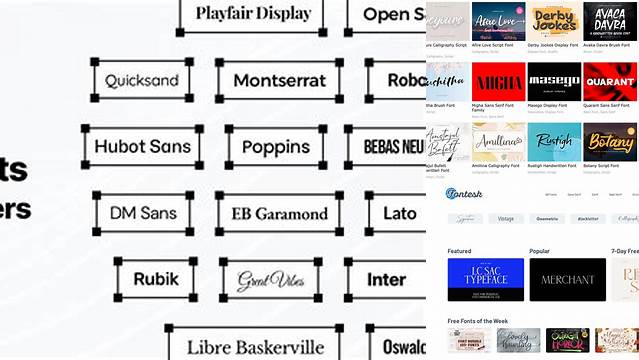
Best Free Font Download Websites
Hey guys! Finding the perfect font for your project can sometimes feel like searching for a needle in a haystack. But don't worry, I've got you covered! There are tons of awesome websites out there where you can download free fonts to spice up your designs, whether you're working on a website, a presentation, or even a cool poster. Let's dive into some of the best free font download websites that can seriously level up your typography game.
1. High-Quality Free Font Websites
When it comes to finding the perfect typeface, quality is key. You don't want to end up with a font that looks pixelated or unprofessional, right? That's why it's super important to check out websites that offer high-quality free fonts. These sites usually have a curated selection, meaning each font has been carefully vetted for its design and usability. Think of it like shopping at a boutique instead of a big box store – you're more likely to find something truly special. Free font download websites that prioritize quality often have clear licensing information, so you know exactly how you can use the fonts without running into any legal issues. This is a big plus, especially if you're using the fonts for commercial projects. Make sure to explore the collection; you might find a hidden gem that perfectly matches your creative vision! Always remember, a great font can make a world of difference in how your project is perceived. So, take your time, explore these high-quality resources, and find the perfect match for your design needs. You'll be amazed at the impact a well-chosen font can have.
3. Best Websites for Aesthetic Fonts
Looking to add a touch of flair and personality to your designs? Then you're probably on the hunt for aesthetic fonts! These are the fonts that go beyond the basic and bring a unique vibe to your projects. Think stylish serifs, elegant scripts, and bold display fonts that scream creativity. The best websites for aesthetic fonts offer a diverse range of options, from vintage-inspired typefaces to modern, minimalist styles. Browsing these sites can be like stepping into a candy store for designers – so many delicious options! When you're searching for aesthetic fonts, pay attention to the mood you want to create. A playful script might be perfect for a wedding invitation, while a strong serif font can add gravitas to a business presentation. Don't be afraid to mix and match, but make sure your font choices complement each other and the overall design. And remember, the right aesthetic font can make your project truly stand out from the crowd. So, go ahead and explore these amazing resources and unleash your inner font fanatic!
4. User-Friendly Font Download Platforms
Let's face it: nobody wants to spend hours navigating a clunky website just to download a font. That's why user-friendly font download platforms are a godsend. These websites make the process of finding and downloading fonts super smooth and hassle-free. We're talking clear navigation, intuitive search filters, and easy-to-understand licensing information. A great user-friendly font download website will let you quickly browse by category (like serif, sans-serif, script), style (modern, vintage, handwritten), or even specific designers. Some platforms also offer previews, so you can see exactly how the font looks before you download it. This is a huge time-saver! Another feature to look for is a robust search function. You should be able to type in keywords like "bold," "elegant," or "retro" and get relevant results. Ultimately, the goal of a user-friendly platform is to make finding the perfect font as easy as possible. So, if you're tired of wrestling with confusing websites, check out these gems and get ready for a streamlined font-downloading experience!
5. Websites with a Wide Variety of Font Styles
Variety is the spice of life, and the same goes for fonts! If you're a designer who loves to experiment and explore different styles, you'll want to check out websites with a wide variety of font styles. These are the treasure troves where you can find everything from classic serifs and clean sans-serifs to quirky handwritten fonts and futuristic display typefaces. Think of it as a one-stop-shop for all your typographic needs. A website with a vast font library not only gives you more options but also helps you discover new styles you might not have considered before. You might stumble upon the perfect vintage-inspired font for your logo or a unique script font for your website header. When browsing these sites, take advantage of the filters and categories to narrow down your search. You can usually filter by style, weight, width, and even specific features like ligatures or alternates. And don't be afraid to get lost in the sheer abundance of choices! That's part of the fun. So, if you're looking to expand your font horizons, dive into these websites with a massive selection of font styles and get ready to be inspired.
6. Free Fonts for Graphic Design Projects
If you're a graphic designer, you know that typography is a crucial element of any project. The right font can make or break a design, conveying the right message and creating the desired mood. That's why having access to a collection of free fonts for graphic design projects is a must. But not just any free font will do. You need fonts that are high-quality, versatile, and suitable for a range of applications, from logos and branding to websites and print materials. The best websites for graphic design free fonts offer a curated selection of typefaces that meet these criteria. They often have fonts designed specifically for headlines, body text, or display purposes, making it easier to find what you need. When choosing free fonts for your graphic design projects, consider the overall aesthetic you're aiming for. Do you need a clean and modern sans-serif for a tech startup? Or a classic serif font for a more traditional brand? Think about readability, legibility, and how the font will work in different sizes and contexts. With the right fonts in your toolkit, you'll be able to create stunning designs that truly stand out.
7. Free Fonts for Web Design
In the world of web design, typography plays a pivotal role in creating a user-friendly and visually appealing experience. The fonts you choose can impact everything from readability to brand personality. That's why finding the right free fonts for web design is so important. But what makes a font "good" for the web? Well, it needs to be legible on different screens and devices, load quickly to avoid slowing down your site, and complement your overall design aesthetic. Luckily, there are plenty of fantastic free font download websites that offer fonts specifically optimized for web use. These fonts often come in formats like TTF, OTF, and WOFF, which are compatible with most web browsers. When choosing free fonts for your website, consider factors like font pairing (how well the headline and body fonts work together) and responsiveness (how the fonts scale on different screen sizes). You might also want to look for web fonts that support different languages and character sets. With the right free web fonts, you can create a website that looks professional, engaging, and easy to read.
8. Free Fonts for Logo Design
Your logo is the face of your brand, so the font you choose for it is a big deal. It needs to be memorable, legible, and perfectly capture your brand's personality. That's why the search for free fonts for logo design is a common quest for entrepreneurs and designers alike. But finding the perfect font for a logo can be tricky. You need something that stands out, but also works well in different sizes and applications, from business cards to website headers. Many free font download websites offer fonts that are particularly well-suited for logo design. These might include bold display fonts, elegant serifs, or unique script fonts. When selecting a free font for your logo, think about your brand's identity. Are you going for a modern and minimalist look? Or a more classic and sophisticated vibe? Consider how the font will look in black and white, as well as in color. And don't be afraid to customize a free font to make it truly unique to your brand. With a little creativity, you can find the perfect free font to make your logo shine.
9. Free Fonts for Personal Use
Sometimes, you just want to play around with fonts for fun – maybe for a personal project, a birthday card, or a social media post. That's where free fonts for personal use come in. These are fonts that you can download and use for free in your non-commercial projects. Think of them as the perfect way to add a personal touch to your creative endeavors without spending a dime. Many free font download websites offer a wide selection of fonts that fall under this category. You can find everything from playful handwritten fonts to elegant calligraphy scripts, all perfect for adding a unique flair to your projects. When using free fonts for personal use, it's always a good idea to double-check the license agreement to make sure you're using them within the terms. Most of these fonts are clearly marked as "free for personal use only," but it's still good to be certain. So, go ahead and explore the world of free fonts for personal projects and let your creativity flow!
10. Free Fonts with Open Source Licenses
In the world of free fonts, open source licenses are like the gold standard. They give you the most freedom and flexibility to use fonts in a wide range of projects, both personal and commercial. Free fonts with open source licenses are typically released under licenses like the SIL Open Font License (OFL), which allows you to use, modify, and redistribute the fonts freely. This means you can use them in your logos, websites, print materials, and pretty much anything else you can dream up. The beauty of open source fonts is that they're often a collaborative effort, with designers from around the world contributing to their creation and improvement. This leads to a diverse and high-quality collection of typefaces. When you download fonts with an open source license, you're not just getting a free font; you're also becoming part of a community that values sharing and creativity. So, if you're looking for fonts that you can truly own and use without restrictions, check out free font download websites that offer open source options.
11. Trending Font Styles for Free Download
Just like fashion, font trends come and go. What's hot one year might be old news the next. So, if you want your designs to look fresh and modern, it's a good idea to keep an eye on trending font styles. Luckily, many free font download websites curate collections of the latest and greatest typefaces, making it easy to stay on top of the trends. Right now, we're seeing a lot of love for things like bold sans-serifs, retro-inspired fonts, and hand-drawn scripts. But trends can change quickly, so it's always good to browse around and see what's catching your eye. One of the best ways to find trending fonts is to check out design blogs and social media platforms. Designers often share their favorite new fonts and font combinations, giving you a glimpse into what's popular in the design world. And don't be afraid to experiment with different font styles to see what works best for your projects. The key is to find fonts that feel current and reflect the overall aesthetic you're aiming for. With a little research, you can download free trending fonts and give your designs a stylish edge.
12. Best Free Serif Font Websites
Serif fonts are classic, elegant, and versatile, making them a staple in the world of typography. These fonts, characterized by the small strokes or "serifs" at the ends of the letters, can add a touch of sophistication to any design. If you're looking for free serif fonts, you're in luck! There are many excellent websites that offer a wide selection of these timeless typefaces. The best free serif font websites curate high-quality fonts that are suitable for a variety of projects, from body text in books and articles to headlines and logos. When browsing these sites, you'll find everything from traditional serif fonts like Times New Roman and Garamond to more modern and unique options. One of the great things about serif fonts is their readability, especially in print. They can also evoke a sense of tradition, authority, and trustworthiness. So, if you're looking to add a touch of class to your designs, explore the world of free serif fonts and discover the perfect typeface for your project. With so many options available, you're sure to find a free serif font that fits your needs and style.
13. Top Free Sans-Serif Font Resources
In contrast to serif fonts, sans-serif fonts are known for their clean, modern, and minimalist aesthetic. These fonts, which lack the serifs at the ends of the strokes, are a popular choice for web design, branding, and other contemporary applications. If you're on the hunt for free sans-serif fonts, you'll be happy to know that there are tons of top resources available online. The top free sans-serif font resources offer a diverse range of options, from classic fonts like Helvetica and Arial to more unique and stylish choices. When choosing a sans-serif font, consider factors like legibility, scalability, and overall tone. These fonts are often used for headlines, body text, and user interfaces, so it's important to select a font that is easy to read in a variety of sizes and contexts. The best websites for free fonts will allow you to preview the font in different sizes and styles, making it easier to find the perfect match for your project. So, whether you're designing a website, a logo, or a marketing campaign, explore the world of free sans-serif fonts and discover the perfect typeface to convey your message.
14. Free Script and Handwritten Font Websites
If you're looking to add a personal touch to your designs, script and handwritten fonts are the way to go. These fonts mimic the fluidity and charm of handwriting, adding a touch of warmth and personality to your projects. Whether you're designing invitations, logos, or social media graphics, a well-chosen script or handwritten font can make a big impact. Luckily, there are several free script and handwritten font websites where you can find a wide variety of these stylish typefaces. The best free font resources offer everything from elegant calligraphy scripts to playful brush-lettered fonts. When browsing these sites, consider the overall mood you want to create. A formal script font might be perfect for a wedding invitation, while a more casual handwritten font could be ideal for a blog post or social media graphic. The top free font download websites will also allow you to preview the font before you download it, so you can see how it looks in different sizes and contexts. So, if you're ready to add a personal touch to your designs, explore the world of free script and handwritten fonts and find the perfect typeface to express your creativity.
15. Best Free Display Font Download Sites
Display fonts are the rock stars of the font world. These eye-catching typefaces are designed to grab attention and make a statement. They're perfect for headlines, logos, posters, and other projects where you want to make a big impact. If you're looking for best free display font download sites, you're in the right place. There are several websites that offer a fantastic selection of these attention-grabbing fonts. The best free font websites curate high-quality display fonts that are suitable for a variety of design styles, from vintage to modern. When choosing a display font, consider the overall tone and message you want to convey. A bold, geometric font might be perfect for a tech startup, while a quirky, hand-drawn font could be ideal for a children's book. The top websites for free fonts will also allow you to filter your search by style, weight, and other criteria, making it easy to find the perfect display font for your project. So, if you're ready to make a statement with your typography, explore the world of free display fonts and find the perfect typeface to capture attention.
16. Free Vintage and Retro Font Websites
Vintage and retro fonts are all the rage these days, bringing a touch of nostalgia and old-school charm to your designs. These fonts evoke a sense of history and craftsmanship, making them perfect for projects that want to capture a classic or timeless feel. If you're looking for free vintage and retro font websites, you're in luck! There are several online resources that offer a fantastic selection of these stylish typefaces. The best free font download websites curate vintage and retro fonts that range from elegant serifs inspired by the early 20th century to bold, Art Deco-inspired display fonts. When choosing a vintage or retro font, consider the specific era or style you want to emulate. A script font with swashes and flourishes might be perfect for a vintage wedding invitation, while a bold, sans-serif font could be ideal for a retro-inspired logo. The top free font websites will also provide previews of the fonts, so you can see how they look in different sizes and contexts. So, if you're ready to add a touch of vintage charm to your designs, explore the world of free vintage and retro fonts and find the perfect typeface to transport your audience back in time.
17. Free Modern and Futuristic Font Resources
If you're looking to create a sleek, cutting-edge design, modern and futuristic fonts are the way to go. These fonts often feature clean lines, geometric shapes, and a minimalist aesthetic, making them perfect for projects that want to convey innovation and forward-thinking. If you're on the hunt for free modern and futuristic font resources, you'll be happy to know that there are several websites that offer a great selection of these stylish typefaces. The best websites for free fonts curate modern and futuristic fonts that range from sleek sans-serifs to geometric display fonts. When choosing a modern or futuristic font, consider the overall tone and message you want to convey. A minimalist sans-serif might be perfect for a tech startup's website, while a bold, geometric display font could be ideal for a sci-fi movie poster. The top free font download websites will also provide information about the font's license, so you can ensure it's suitable for your intended use. So, if you're ready to create a design that looks like it's from the future, explore the world of free modern and futuristic fonts and find the perfect typeface to express your vision.
18. Websites Offering Multilingual Free Fonts
In today's globalized world, it's essential to choose fonts that support multiple languages. If you're designing for an international audience, you'll need to use websites offering multilingual free fonts. These websites provide fonts that include characters and glyphs for a wide range of languages, ensuring that your designs will look consistent and professional no matter where they're viewed. The best free font resources for multilingual fonts offer a variety of styles, from serif and sans-serif to script and display fonts, all with extensive language support. When choosing multilingual fonts, it's important to check which languages are supported and to ensure that the font includes all the characters you need. The top free font websites will often provide detailed information about the font's language support, as well as previews of the characters and glyphs. So, if you're designing for a global audience, be sure to explore free font download websites that offer multilingual options and choose fonts that will help you communicate effectively with your target audience.
19. Free Font Websites with Character Sets and Glyphs
For designers who need more than just basic letters and numbers, free font websites with character sets and glyphs are a must-visit. These websites offer fonts that include a wide range of additional characters, such as symbols, icons, ligatures, and alternate glyphs. These extra characters can add a unique flair to your designs and allow you to create more expressive and visually interesting typography. The best free font download websites for character sets and glyphs offer fonts in a variety of styles, from classic to contemporary, all with extensive character support. When choosing a font with extra characters, it's important to consider the specific needs of your project. Do you need mathematical symbols? Currency symbols? Or perhaps some decorative swashes and flourishes? The top websites for free fonts will often allow you to preview the font's character set, so you can see exactly what's included before you download it. So, if you're looking to add some extra personality and functionality to your designs, explore free fonts with rich character sets and glyphs and unlock a world of typographic possibilities.
20. Free Font Resellers: Are They Safe?
When searching for free fonts, you might come across free font resellers. These are websites that collect and redistribute fonts from various sources, often without proper licensing or permission. The question is: are free font resellers safe to use? The answer is, it's complicated. While some free font resellers might offer legitimate fonts, others may distribute fonts that are pirated, incomplete, or even contain malware. Using fonts from these sources can put you at risk of copyright infringement and legal issues. It's always best to download fonts from reputable sources that have clear licensing agreements and a proven track record of providing safe, high-quality fonts. The best free font websites work directly with font designers and foundries to ensure that their fonts are properly licensed and safe to use. So, while the allure of a free font download from a reseller might be tempting, it's important to prioritize safety and legality. Stick to trusted sources and protect yourself from potential risks. This means doing your research and understanding the terms of use before you click that download button. Remember, if a deal seems too good to be true, it probably is. Focus on building a collection of fonts from reputable sources, and you'll be setting yourself up for success in the long run.
21. Understanding Font Licensing for Free Fonts
Navigating the world of font licensing can feel like deciphering a secret code, but it's a crucial step when using free fonts. Understanding font licensing for free fonts ensures that you're using the fonts legally and ethically, and it protects you from potential copyright issues. The most common type of license you'll encounter with free fonts is the SIL Open Font License (OFL), which allows you to use, modify, and redistribute the font freely, even for commercial purposes. However, not all free fonts are licensed under the OFL, so it's essential to read the license agreement carefully before using a font. Some fonts may be free for personal use only, while others may have restrictions on embedding or modification. The best free font download websites will provide clear and concise licensing information for each font, making it easy to understand the terms of use. When in doubt, it's always best to contact the font designer or foundry directly to clarify any licensing questions. By understanding font licensing, you can use free fonts with confidence and focus on creating amazing designs without worrying about legal repercussions. This knowledge empowers you to make informed decisions and ensures that you're respecting the rights of the font creators. So, take the time to read the fine print, and you'll be well on your way to using free fonts responsibly.
22. How to Install Downloaded Free Fonts
So, you've found the perfect free font and clicked that download button – awesome! But what happens next? How to install downloaded free fonts is a straightforward process, but it can vary slightly depending on your operating system. Whether you're on Windows or macOS, the basic steps are the same: locate the downloaded font files, install them on your system, and then restart your design software. On Windows, you can typically install a font by right-clicking on the font file (usually a .ttf or .otf file) and selecting "Install." You can also copy the font files into the "Fonts" folder in your Windows directory. On macOS, you can simply double-click on the font file, and it will open in Font Book, where you can click "Install Font." Once the font is installed, it should be available in all your design applications, such as Adobe Photoshop, Illustrator, and InDesign. If you're having trouble seeing the font, try restarting your computer or design software. The best free font download websites often provide instructions on how to install fonts for different operating systems, so be sure to check their FAQs or help sections if you need assistance. With a few simple steps, you can add a whole new world of typography to your design toolkit!
23. Free Font Pairing Tools and Resources
The right font can make your design sing, but the wrong font combination can create a typographic cacophony. That's where free font pairing tools and resources come to the rescue. Font pairing is the art of selecting two or more fonts that work well together, creating a harmonious and visually appealing design. But how do you know which fonts to pair? Luckily, there are several free online tools and resources that can help you find the perfect font combinations. These tools often use algorithms and design principles to suggest fonts that complement each other in terms of style, weight, and overall aesthetic. Some free font download websites also offer curated font pairings, showcasing fonts that work well together within their library. When using font pairing tools, it's important to consider the purpose and tone of your design. A classic serif font might pair well with a clean sans-serif for a professional look, while a script font might complement a more playful sans-serif for a casual design. Experiment with different font combinations and trust your eye to find the perfect match for your project. With a little help from these handy resources, you'll be creating stunning typographic compositions in no time.
24. Converting Fonts to Different Formats for Free
Sometimes, you might encounter a free font in a format that's not compatible with your software or platform. That's where converting fonts to different formats for free becomes a useful skill. There are several free online font converters that allow you to change font formats, such as TTF (TrueType Font) to OTF (OpenType Font), or WOFF (Web Open Font Format) for web use. These tools typically work by uploading your font file and selecting the desired output format. The conversion process usually takes just a few seconds, and you can then download the converted font in the new format. Why would you need to convert fonts? Well, different platforms and applications have different font compatibility requirements. For example, web fonts need to be in WOFF or WOFF2 format for optimal performance, while some older software may only support TTF fonts. Converting fonts can also help to reduce file size or add features like hinting or kerning. However, it's important to be aware that converting fonts can sometimes affect their quality or appearance. It's always a good idea to preview the converted font to ensure that it looks as intended. The best free font download websites may also offer fonts in multiple formats, saving you the trouble of converting them yourself. But when you do need to convert fonts, these free online tools can be a real lifesaver.
25. How to Use Free Fonts in Adobe Photoshop
Adobe Photoshop is a powerful tool for graphic designers, and knowing how to use free fonts in Adobe Photoshop is essential for creating stunning visuals. Once you've downloaded and installed a free font, it should automatically appear in Photoshop's font menu. To use it, simply select the Type tool, click on your canvas, and start typing. Then, highlight your text and choose your new font from the font dropdown menu in the Character panel. If you don't see your installed font, try restarting Photoshop or your computer. Sometimes, Photoshop needs a little nudge to recognize new fonts. In Photoshop, you can adjust various font settings, such as size, kerning, tracking, and leading, to fine-tune the appearance of your text. You can also apply different layer styles, such as shadows, glows, and gradients, to add depth and dimension to your typography. When using free fonts in Photoshop, it's important to choose fonts that are legible and appropriate for your design. Consider the overall tone and message you want to convey, and select fonts that complement your visual style. The best free font download websites often offer tips and guidelines on how to use fonts effectively in design, so be sure to check out their resources for inspiration. With a little practice, you'll be mastering the art of typography in Photoshop in no time!
26. Using Free Fonts in Adobe Illustrator
Similar to Photoshop, Adobe Illustrator is another industry-standard design tool where using free fonts can greatly enhance your creative projects. The process of using free fonts in Adobe Illustrator is quite similar to Photoshop. Once you've downloaded and installed your free font, it should automatically be available in Illustrator's font menu. To use it, select the Type tool, click on your artboard, and begin typing. Highlight your text, and then choose your newly installed font from the Character panel. If you encounter any issues with the font not appearing, restarting Illustrator can often resolve this. Illustrator offers a range of typographic controls, including font size, kerning, tracking, and leading, allowing for precise adjustments to your text. You can also explore features like Type on a Path and Area Type to create unique typographic layouts. When selecting free fonts for Illustrator, consider the scalability of the font, especially if you're designing logos or illustrations that might be used in various sizes. Vector-based programs like Illustrator allow fonts to scale without losing quality, making it essential to choose fonts that maintain their legibility and visual appeal at different sizes. Many free font download websites offer fonts that are well-suited for vector graphics, ensuring that your designs look crisp and professional. By understanding how to use free fonts effectively in Illustrator, you can create stunning designs that stand out.
27. Incorporating Free Fonts in Web Design Projects
Incorporating free fonts in web design projects is a fantastic way to enhance the visual appeal and user experience of your website without breaking the bank. However, there are some key considerations to keep in mind when choosing free fonts for the web. First and foremost, you need to ensure that the free fonts are optimized for web use. This means they should be available in web-friendly formats like WOFF, WOFF2, or EOT. These formats are designed to load quickly and efficiently in web browsers, ensuring that your website remains fast and responsive. Many free font download websites offer fonts specifically optimized for the web, making it easier to find suitable options. Another important aspect is to consider the legibility of the font on different screens and devices. Choose fonts that are clear and easy to read, even at smaller sizes. The best free font resources for web design often provide previews of how the font will look on different devices, allowing you to make informed decisions. When incorporating free fonts, you'll typically use CSS to specify the font family for different elements on your website. You can also use font-display properties to control how fonts load, improving the perceived performance of your site. By carefully selecting and incorporating free fonts in your web design projects, you can create a visually appealing and user-friendly online experience.
28. Common Mistakes to Avoid When Downloading Free Fonts
Downloading free fonts can be an exciting way to expand your design toolkit, but it's important to be aware of common mistakes to avoid when downloading free fonts. One of the biggest mistakes is downloading fonts from untrusted sources. As mentioned earlier, some websites may offer fonts that are pirated, incomplete, or even contain malware. Always download fonts from reputable websites with clear licensing agreements. Another common mistake is failing to read the font license. Not all free fonts are free for all uses. Some may be free for personal use only, while others may have restrictions on commercial use or modification. Make sure you understand the font license before using it in your projects. Another mistake is downloading too many fonts. While it's tempting to collect a vast library of fonts, having too many can make it difficult to find the right font for your project and can even slow down your computer. It's better to focus on building a collection of high-quality fonts that you know you'll use. Finally, don't forget to organize your downloaded fonts! Create folders and categories to keep your fonts organized, making it easier to find what you need when you need it. By avoiding these common mistakes, you can ensure a safe and enjoyable free font downloading experience.
29. Future Trends in Free Font Design
The world of typography is constantly evolving, and it's exciting to think about the future trends in free font design. One trend we're likely to see is the continued rise of variable fonts. Variable fonts are a new font technology that allows for a single font file to contain multiple variations in weight, width, and other characteristics. This can lead to smaller file sizes and greater flexibility in web design. Another trend is the increasing popularity of hand-drawn and organic fonts. These fonts add a personal touch to designs and are perfect for projects that want to convey a sense of authenticity and creativity. We're also likely to see more experimental and unconventional fonts that push the boundaries of traditional typography. Designers are always looking for new ways to express themselves, and free fonts offer a great platform for innovation. In addition, the demand for multilingual fonts will continue to grow as the web becomes increasingly globalized. Free fonts that support multiple languages and character sets will be highly valued. Finally, the best free font download websites will continue to improve their user experience, making it easier to find and download the perfect fonts for any project. By keeping an eye on these future trends, you can stay ahead of the curve in the world of typography and create designs that are both stylish and effective.
30. How to Contribute to the Free Font Community
If you're passionate about typography and want to give back to the design community, there are several ways you can contribute to the free font community. One of the most direct ways is to design and release your own free fonts. This can be a rewarding experience and a great way to showcase your skills. There are many resources available online to help you learn font design, including tutorials, software recommendations, and design communities. Another way to contribute is to donate to or support font designers and foundries who offer free fonts. Even small donations can help these creators continue their work and provide valuable resources to the design community. You can also contribute to open-source font projects, helping to improve existing free fonts and add new features. This can involve tasks like fixing bugs, adding language support, or creating alternate glyphs. Additionally, you can help spread the word about great free fonts by sharing them on social media, writing blog posts, or creating tutorials. This helps other designers discover these resources and makes the free font community even stronger. Finally, you can provide feedback and suggestions to font designers and websites offering free fonts. Your input can help them improve their offerings and better serve the needs of the design community. By contributing to the free font community, you can help make high-quality typography accessible to everyone and support the creativity of designers around the world.